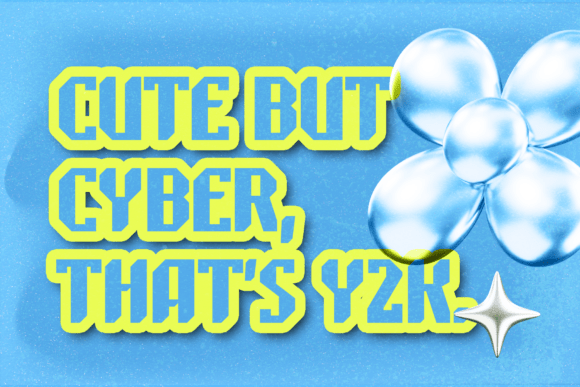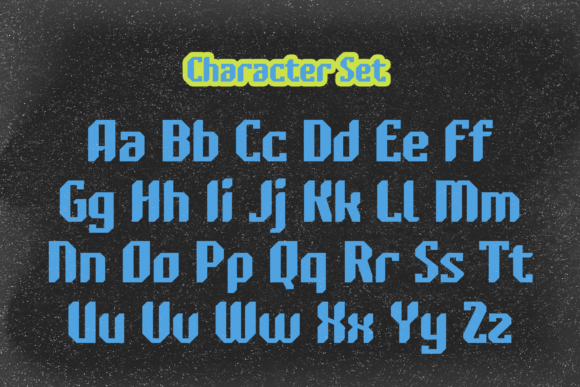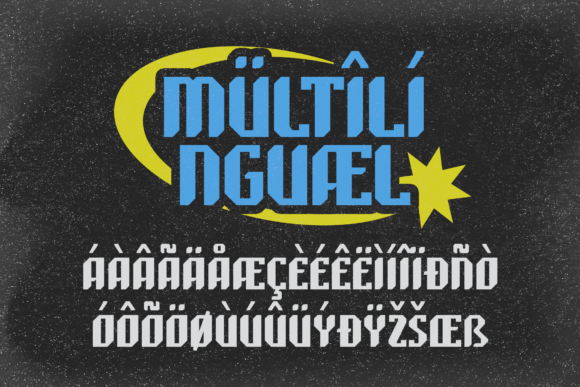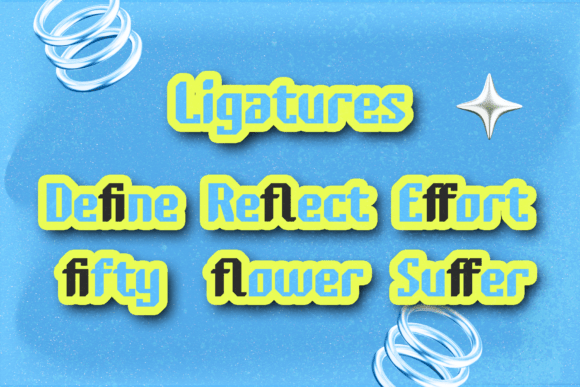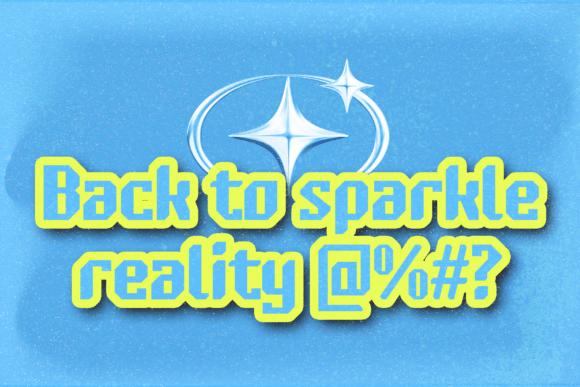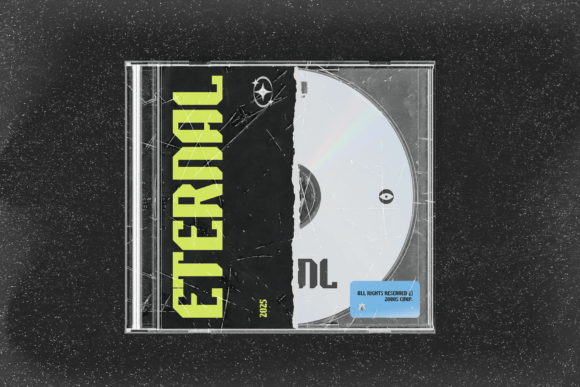
Introduction to Keysta Font
Have you ever found yourself scrolling through social media and suddenly, a font catches your eye? For designers, it’s that moment of inspiration that sparks a creative project. For me, it was discovering the Keysta Font – a bold and futuristic typeface that embodies the essence of the Y2K era. Its angular, modular shapes transport me back to the early 2000s, where digital vibes and tech aesthetics reigned supreme.
As a design resource, the Keysta Font is a treasure trove of possibilities. Its clean geometric shapes and sleek curves bring a modern-retro vibe that’s perfect for logos, posters, apparel, and digital designs. Whether you’re working on a high-profile project or a personal creative endeavor, this font is sure to elevate your design game. And the best part? It’s available for free download, allowing you to experiment with its possibilities without any restrictions.
With its punchy look and cyber feel, the Keysta Font is an ideal choice for designers who want to add a playful yet edgy touch to their work. Its transparent background and high-quality design make it a valuable asset for any creative project. So, what are you waiting for? Dive into the world of Keysta Font and explore the endless design possibilities it has to offer.
Key Features of Keysta Font
- Unique, modern design with a transparent background, allowing for seamless integration into any project.
- Available in 1 style, with 1 weight, making it a versatile addition to any font collection.
- Designed to work well in both print and digital applications, from business cards to website headers.
- Perfect for designers and artists looking for a high-quality, free design resource to elevate their creative projects.
Honest Review: Keysta Font
As a designer, I’m always on the lookout for high-quality design resources to elevate my creative projects. Recently, I had the chance to work with the Keysta Font, and I’m excited to share my honest review.
What works well: ✨ The Keysta Font is a stylish, modern sans-serif font that’s perfect for titles and headings. Its clean lines and geometric shapes make it a great choice for minimalist designs. I also appreciate the transparent background option, which allows for seamless integration into my designs.
What’s not so great: ⚠️ While the Keysta Font is free to download, it’s not without its limitations. The font family is relatively small, and I found that it didn’t have as many styles and weights as I would have liked. Additionally, the font can appear a bit sterile in certain contexts, which may not be suitable for every design project.
Overall, I think the Keysta Font is a solid choice for designers looking for a high-quality, free download. While it may not be perfect, its unique style and versatility make it a valuable addition to my design arsenal.
Here are some key features of the Keysta Font:
- Modern sans-serif design
- Perfect for titles and headings
Using Keysta Font in Creative Projects
Keysta Font is a high-quality font that can be used in various creative projects, such as logo designs, branding materials, and marketing materials. It’s ideal for projects that require a modern and sleek look.
Tips for Getting the Most Out of Keysta Font
To get the most out of Keysta Font, use it with a transparent background to create a modern and sleek look. You can also experiment with different font sizes and styles to create a unique design.
Keysta Font is commonly used in creative projects that require a modern and sleek look, such as:
- Logo designs
- Website designs
Alternatives to Keysta Font
Open Sans is a modern sans-serif font ideal for a wide range of creative projects. It’s available for free download and can be used for both personal and commercial projects. When to use: Open Sans is perfect for designing websites, applications, and other digital products that require a clean and professional look.
Comparison to Keysta Font: While Open Sans has a similar modern feel, it has a more rounded and friendly appearance compared to the sleek and minimalist design of Keysta Font.